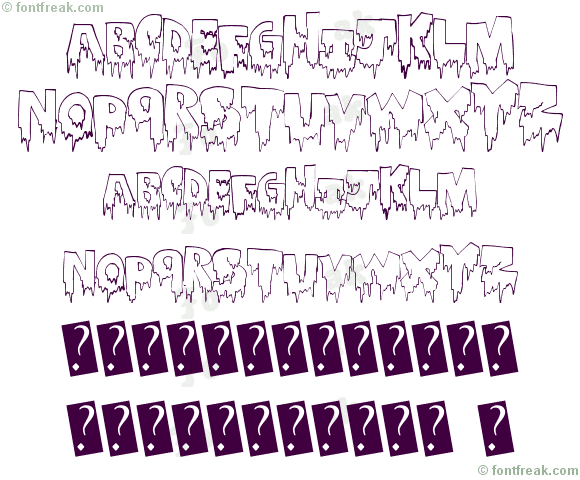
WinterIce
The WinterIce font, designed by Xerographer Fonts in 2012, is a unique display typeface that captures the essence of winter with its playful and creative style. This font features irregular, icy letterforms that mimic the appearance of frost and snow, making it an excellent choice for projects that require a whimsical yet eye-catching aesthetic. The stroke weight varies throughout the characters, adding an organic feel that enhances its decorative nature. The spacing between the letters is thoughtfully arranged to ensure readability while maintaining a visually engaging look.
WinterIce is particularly well-suited for a variety of creative uses. It shines in holiday-themed designs, making it ideal for Christmas cards, winter festivities advertisements, and seasonal promotions. Its charming and quirky style also makes it a great choice for children's book covers or educational materials aimed at younger audiences. Additionally, this font can be utilized in event invitations, such as winter weddings or birthday parties, where a festive touch is desired. Graphic designers, small business owners, and content creators will find this font especially appealing for projects that need to convey a fun and inviting atmosphere.
What truly sets the WinterIce font apart is its ability to evoke a sense of chill and excitement simultaneously. Its distinctive icy design not only captures attention but also creates a memorable impression, making it a fantastic choice for any project requiring a touch of winter magic. With the WinterIce font free download available, incorporating this unique typeface into your designs has never been easier. Whether you’re enhancing a seasonal campaign or adding flair to a festive invitation, WinterIce offers a delightful and versatile option that stands out in any setting.